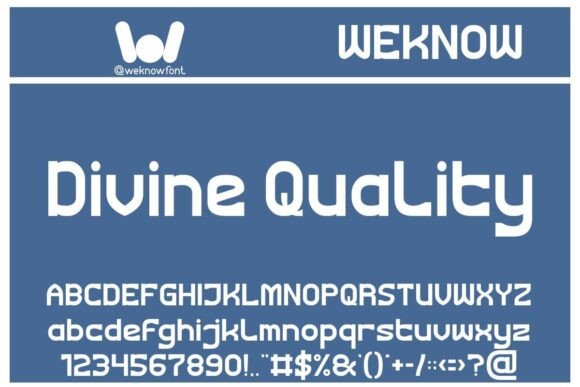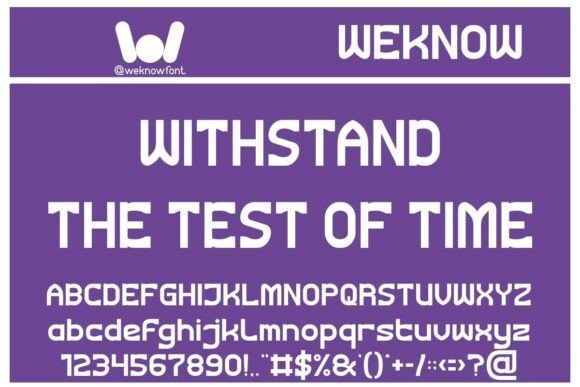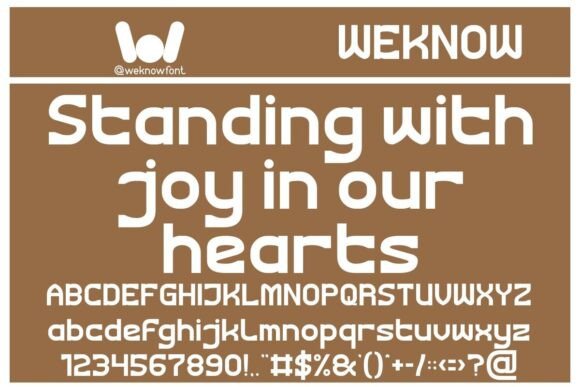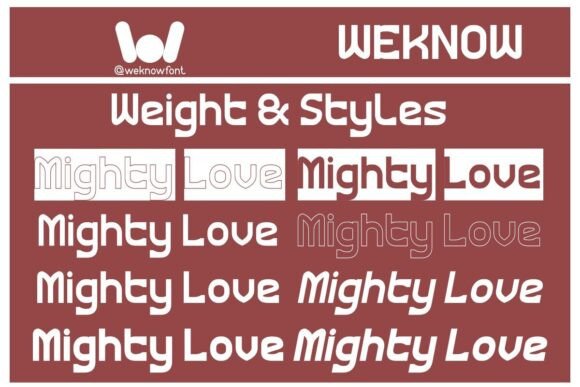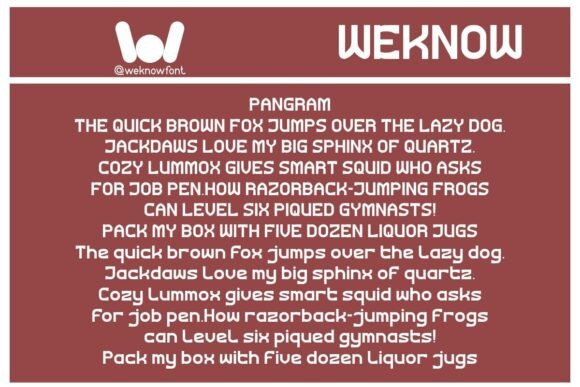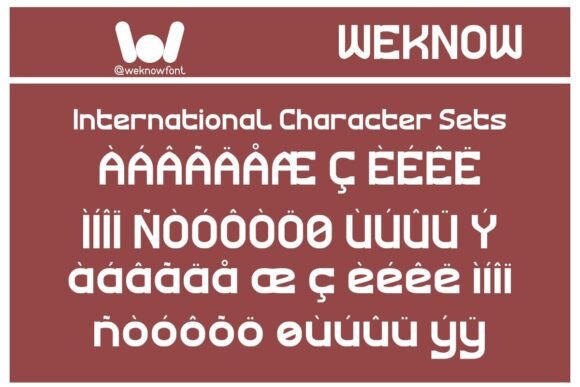
Introduction to Mighty Love Font
Introducing Mighty Love, your go-to choice for an eclectic yet geometric sans serif font, defined by its bold curves, playful character, and casual elegance.
With its dynamism and versatility, Mighty Love is perfect for gracing headlines or ampersanding logos and logotypes, adding a touch of robust charm to corporate and brand identities Let it take center stage in the apparel industry, bringing a clean and modern edge to your designs.
Key Features of Mighty Love Font